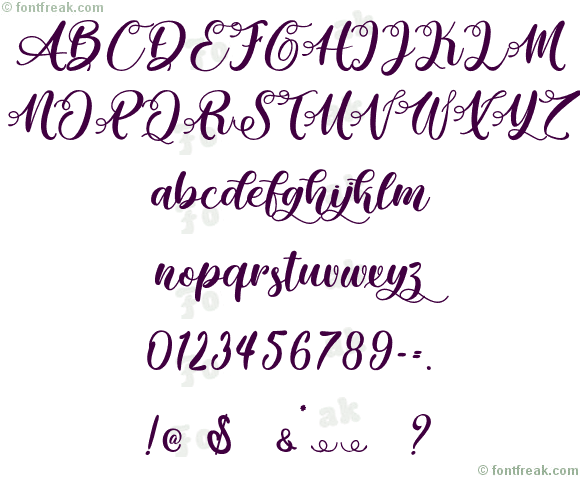
Rhinos Land - Personal Use
About Rhinos Land - Personal Use
Rhinos Land - Personal Use is a captivating script font created by Suthi Srisopha, characterized by its elegant and fluid design. This font falls within the handwritten style category, showcasing a unique blend of sophistication and warmth that makes it ideal for various creative projects. The strokes are fluid and slightly varied in weight, lending a natural, organic feel to the letters. The contrast in thickness adds visual interest, while the ample spacing between characters ensures readability, making this font both stylish and practical.
This versatile font is particularly well-suited for personal and creative applications. It shines in wedding invitations, where its graceful curves can evoke romance and elegance. Additionally, Rhinos Land is perfect for crafting eye-catching movie posters, as it can convey a sense of drama and artistic flair. Restaurant menus can benefit from its charming appeal, enticing diners with a touch of sophistication. Furthermore, this font can enhance greeting cards and personal stationery, adding a heartfelt touch to any message.
What sets the Rhinos Land - Personal Use font apart is its ability to blend artistic flair with functionality. The graceful strokes and unique character of this font create an inviting atmosphere, making it an exceptional choice for anyone looking to add a distinct touch to their designs. Whether you're crafting a heartfelt invitation or designing a striking promotional piece, Rhinos Land - Personal Use font free download is sure to elevate your creative projects.